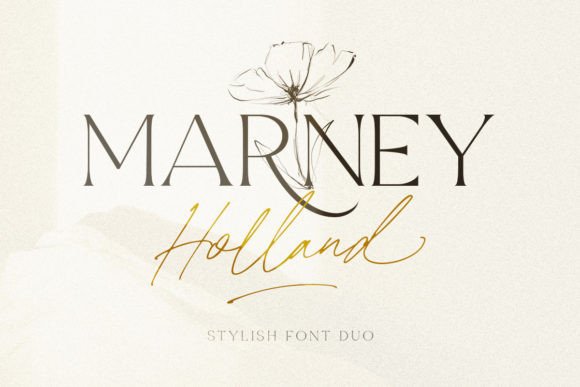
Looking for a font that will make your wedding place cards unforgettable? Look no further than Marney Holland Font! This font family, created by baletype, contains a stylish signature script and an elegant serif that will add an extra touch of sophistication to any project.
But Marney Holland Font is not just for weddings - it's perfect for any branding or logo project that needs a touch of elegance and style. The script font is particularly versatile, with a timeless design that will never go out of fashion.
One of the best things about Marney Holland Font is its ease of use. The font is PUA encoded, which means that accessing all of the glyphs and swashes is a breeze. You won't have to spend hours fiddling around trying to find the right character - everything you need is right at your fingertips.
But don't just take our word for it - try Marney Holland Font for yourself and see how it can elevate your next project. Whether you're creating wedding invitations, designing a new logo, or just adding a touch of style to your website, this font family is sure to impress.